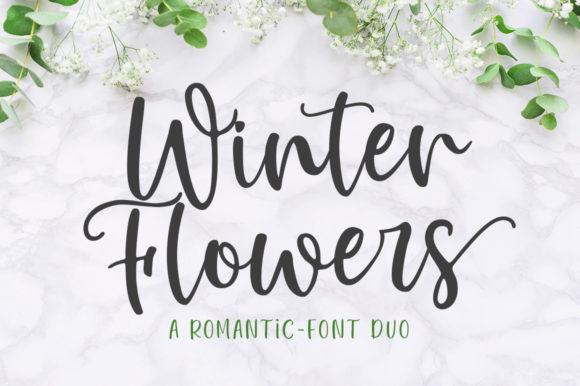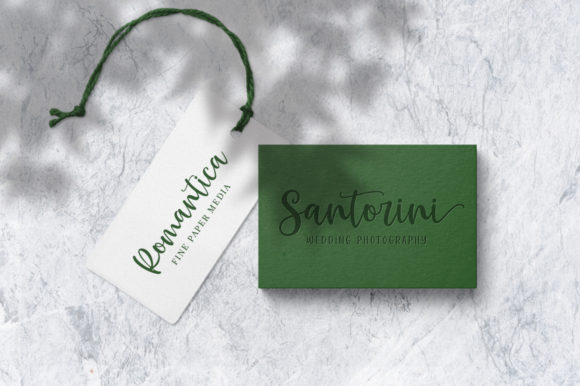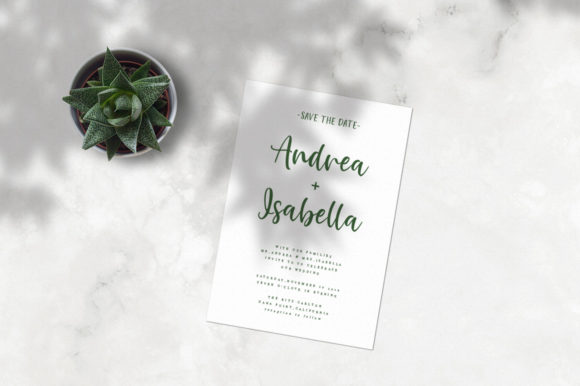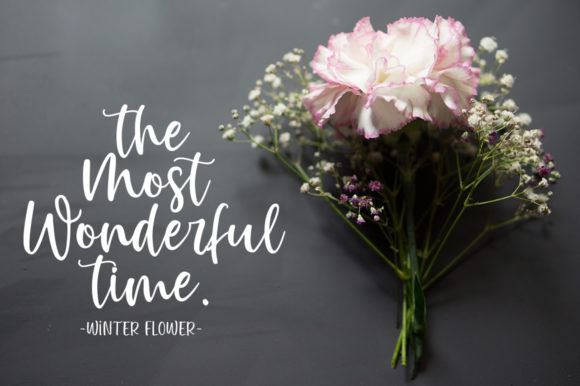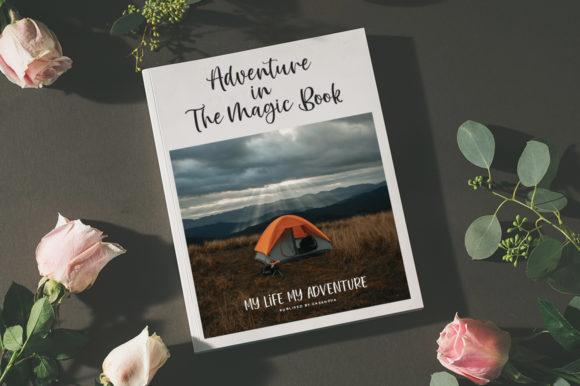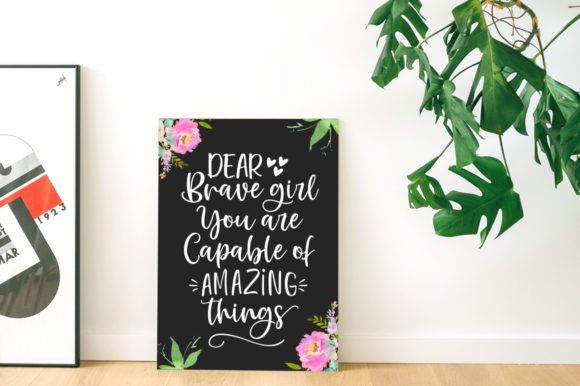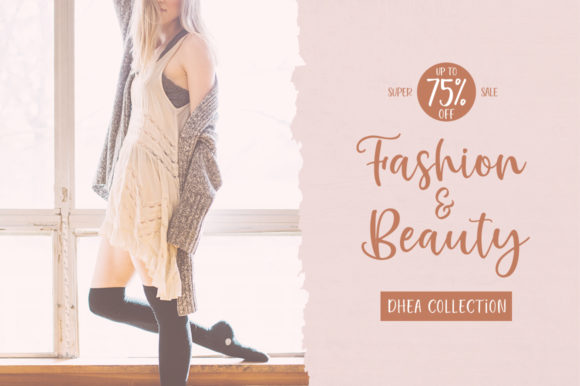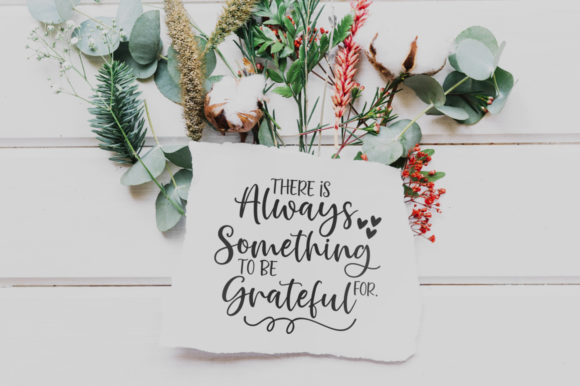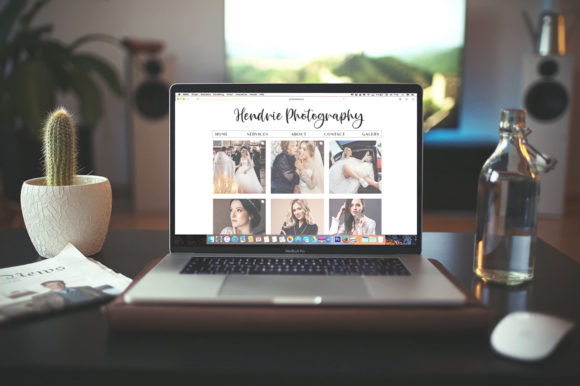
HomeScript FontsWinter Flowers Font Script Fonts Winter Flowers Font FacebookXPinterestWhatsApp Winter Flowers Font Poster 2 Winter Flowers Font Poster 3 Winter Flowers Font Poster 4 Winter Flowers Font Poster 5 Winter Flowers Font Poster 6 Winter Flowers Font Poster 7 Winter Flowers Font Poster 8 Winter Flowers Font Poster 9 About Winter Flowers Font Winter Flowers is a unique font experience, perfect for adding a sophisticated vibe to any design project. DOWNLOAD NOW People also explored Bouchyl | Unique Handwriting Script Font Font Wood Cut Font Caristha Font Beachway Ocean Font Baron Font Fallysteam Font Monoline Font Narrow Comb Font Gellato Rush Font 291 0 TagsWinter Flowers Font Previous articleBattista FontNext articlePrincess Berlianty Font LEAVE A REPLY Cancel reply Comment: Please enter your comment! Name:* Please enter your name here Email:* You have entered an incorrect email address! Please enter your email address here Website: Save my name, email, and website in this browser for the next time I comment. Personal Use Free Love Heart Personal Use Free Read more about this font Nugo Sans Personal Use Free Read more about this font Arnitta Callina Personal Use Free Read more about this font Diland Personal Use Free Read more about this font BLOG The 10 Best Handwriting Fonts to Add Personality to Your Designs 10 of the Best Handwriting Fonts for Adding Personality to Your Designs There will undoubtedly be no other better choice than handwriting fonts to give... Transform Your Website: Elevate Your Typography with 7 Best Web Font Generators Where to Buy American Fonts Online in 2024 Elegant Wedding Invitation Fonts – Handwritten & Script Fonts